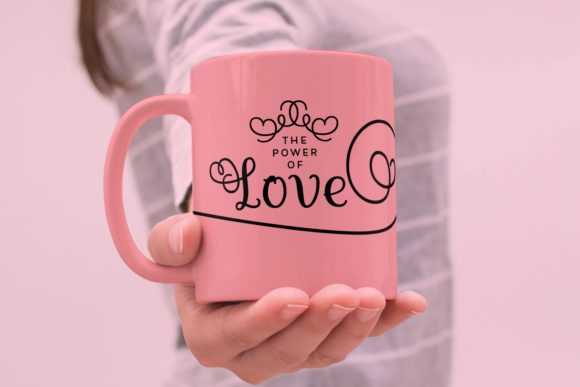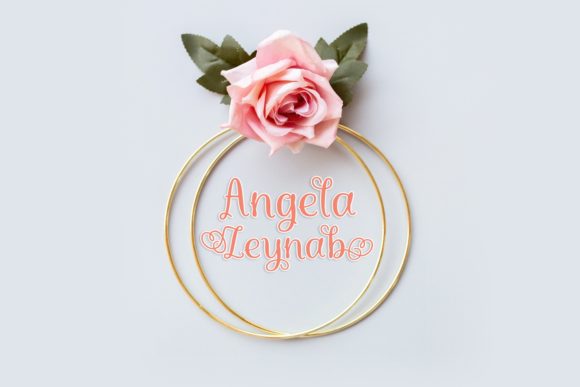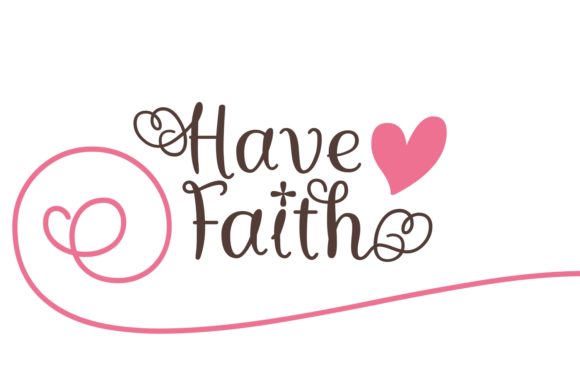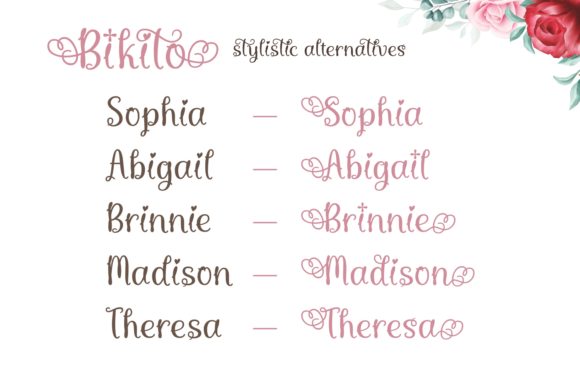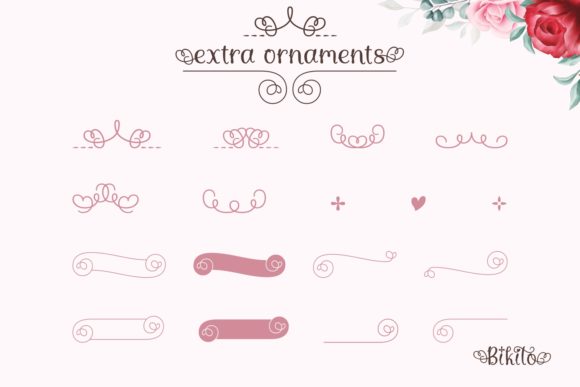
Bikito Font
About Bikito Font
Bikito is a sweet, soft hand-lettered script. The playful rounded characters make it the perfect font for creating stunning craft designs. Bikito comes packed with decorative swashes, that will allow you to add a calligraphic touch within seconds. It comes in 2 unique font styles, Regular and Italic. Get inspired by its authentic feel and use it to create gorgeous wedding invitations, beautiful stationary art, eye-catching social media posts, and cute greeting cards.